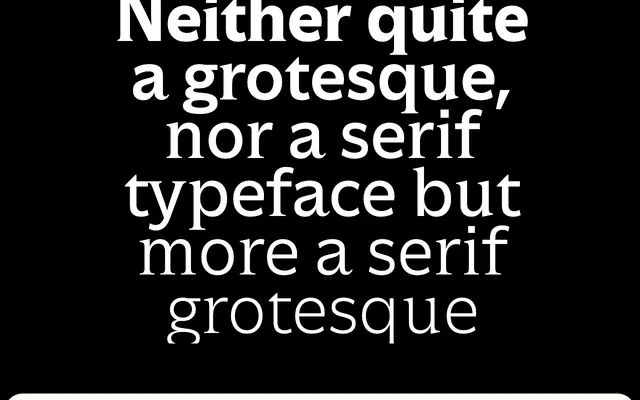
Roman Grotesque
Bureau Brut · Yoann Minet · 2021
A hybrid typeface by Yoann Minet that grafts humanistic serif details onto a grotesque skeleton, originally designed for the École Nationale Supérieure d'Architecture de Paris-Belleville.
Designed in 2019 and released by Bureau Brut in 2021, the family runs across eight weights from Extralight to Black with matching italics, totalling 16 styles. The serifs become progressively less prominent as weight increases, so the lighter cuts read as text faces while the heavier ones perform well at display sizes. It was commissioned for an architecture school whose identity concept placed the human at the centre of construction, and that tension between the organic and the geometric is literal in the letter shapes.
Structured around a sans-serif skeleton with humanistic serif details grafted onto its letterforms, creating a hybrid that defies clean classification; closest to humanist sans with glyphic inflections rather than a true serif.